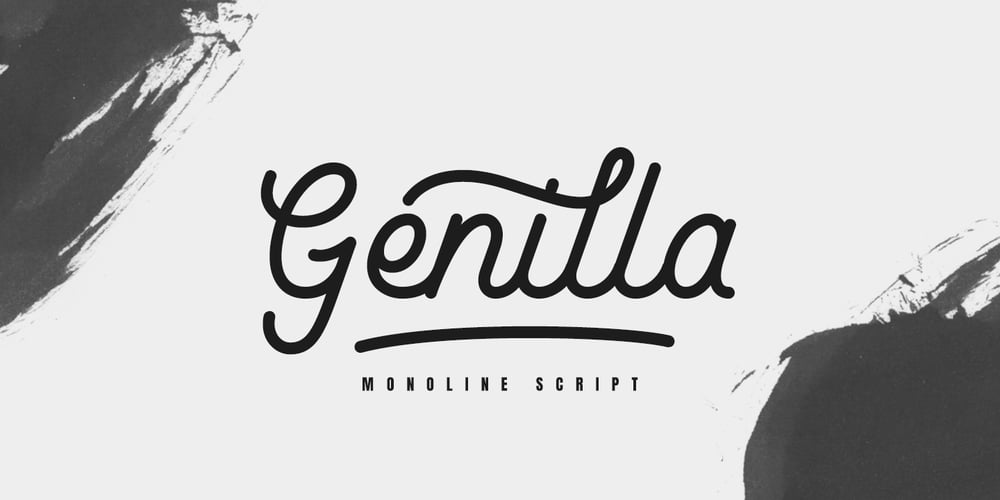
Genilla Font Family was designed by Fatan ZW and published by Fatamorkidd. Genilla contains 2 styles and family package options. Genilla monoline script. It is perfect for branding, logo, invitation, stationery, wedding designs, social media post, handwritten quotes, product packaging etc. Comes with full set of gorgeous uppercase and lowercase letters, numerals, a large range of punctuation, ligatures and also swash.In order to use the beautiful swashes, you need a program that supports OpenType features such as Adobe Illustrator CS, Adobe Photoshop CC, Adobe Indesign and Corel Draw. but if your software doesn’t have Glyphs panel, you can install additional swashes font files.